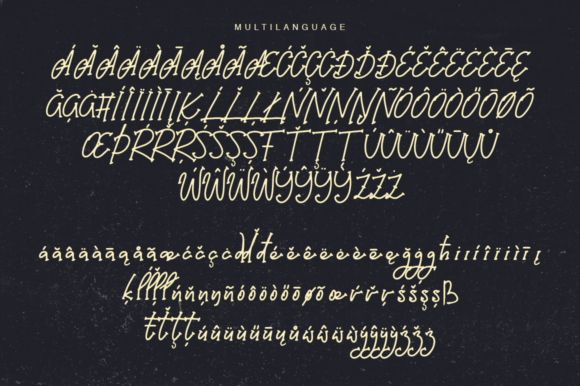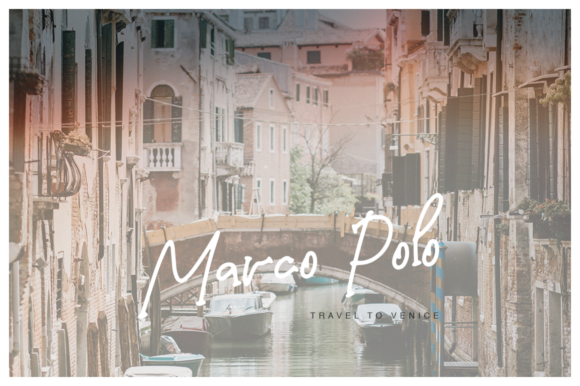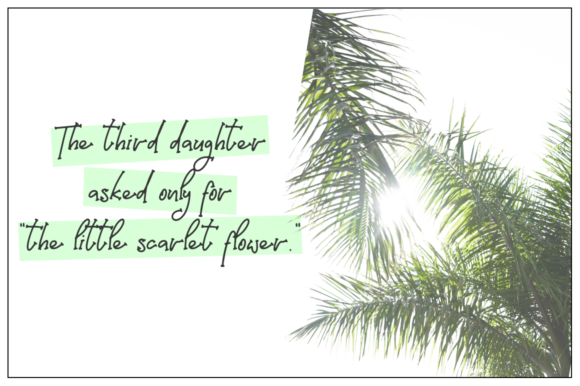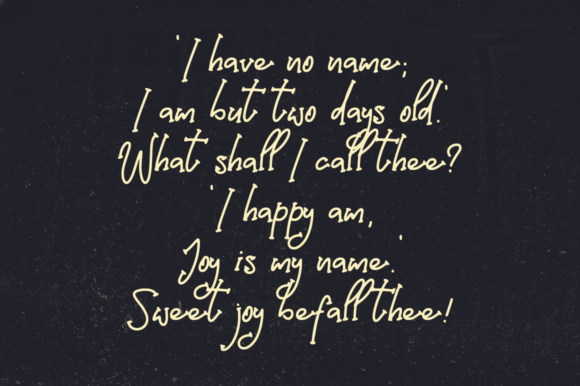
Introduction to High Way Font
Have you ever found yourself in the middle of a creative project, staring at a blank page, and suddenly, a burst of inspiration hits you? The words flow effortlessly, and your design comes to life. For designers, moments like these are invaluable. They’re a reminder that with the right tools, the possibilities are endless.
That’s why we’re excited to introduce you to the High Way Font, a fresh, handmade calligraphy font that’s sure to elevate your designs. With its unique, high-quality aesthetic, High Way Font is perfect for greeting cards, branding materials, business cards, quotes, posters, and more. Whether you’re a seasoned designer or just starting out, this font is a valuable addition to your design resource library.
Key Features of High Way Font
- High-resolution design: The High Way Font is designed with high resolution, making it perfect for use in various creative projects.
- Transparent background: The High Way Font features a transparent background, allowing for easy integration into various design elements.
- High quality: This font is designed with high quality in mind, ensuring crisp and clear text in any size or resolution.
- Size and resolution: This font is available in a range of sizes, from 12pt to 72pt, and is designed to work well at resolutions up to 300 DPI.
- Unique characteristics: The High Way Font features a unique blend of modern and classic design elements, making it perfect for use in a wide range of creative projects.
Honest Review: High Way Font
I recently stumbled upon the High Way Font while searching for a unique design resource for my creative project. I was impressed by the sleek and modern aesthetic of this font, which I’m excited to share with you in this review.
- Works well for modern designs
However, I did encounter a few limitations: ⚠️ The font is not suitable for very small text sizes, and it may not display well on all devices. Additionally, some users may find the font too minimalist for their taste.
Overall, I’m impressed with the High Way Font and would recommend it to designers looking for a high-quality, modern font for their creative project. With a little creativity, this font can elevate any design to the next level.
Use the font for headings, titles, or even body text to add a touch of sophistication to your design. You can also customize the font by adjusting its size, color, and style to fit your design resource.
With the High Way Font, you can create high-quality designs with a transparent background, making it perfect for logos, icons, or other design elements.
Use the High Way Font to add a touch of elegance to your presentations or documents. You can also customize the font to fit your design needs.
Use the High Way Font for headings, titles, or body text to add a touch of sophistication to your design.
Customize the font by adjusting its size, color, and style to fit your design resource.
Use the High Way Font for logos, icons, or other design elements that require a high-quality, transparent background.
Use the font for headings, titles, or body text in presentations, documents, or websites to add a touch of elegance and sophistication.